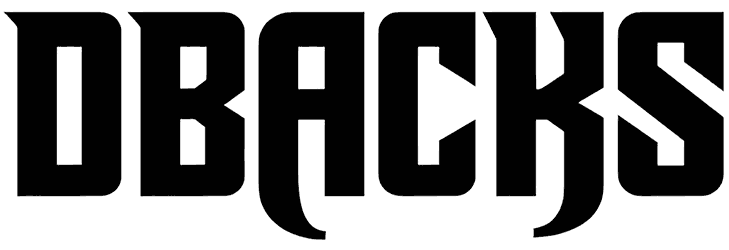
Dbacks Font
Dbacks font has that epic toughness you can spot from across the field. Its sharp gothic structure and sliced letter details feel fast, competitive, and a little desert-hot, like a team logo built to look good on caps, jerseys, and scoreboard graphics. You get bold display power without losing that clean professional edge.
Use this epic font for baseball posters, fantasy league logos, athletic merch, game-day flyers, sports bar branding, trading card titles, or apparel prints with a strong team identity. Add angular stripes, deep red tones, black outlines, or textured stadium backgrounds, and it starts swinging hard.
Designed independently but inspired by the Arizona Diamondbacks uniform